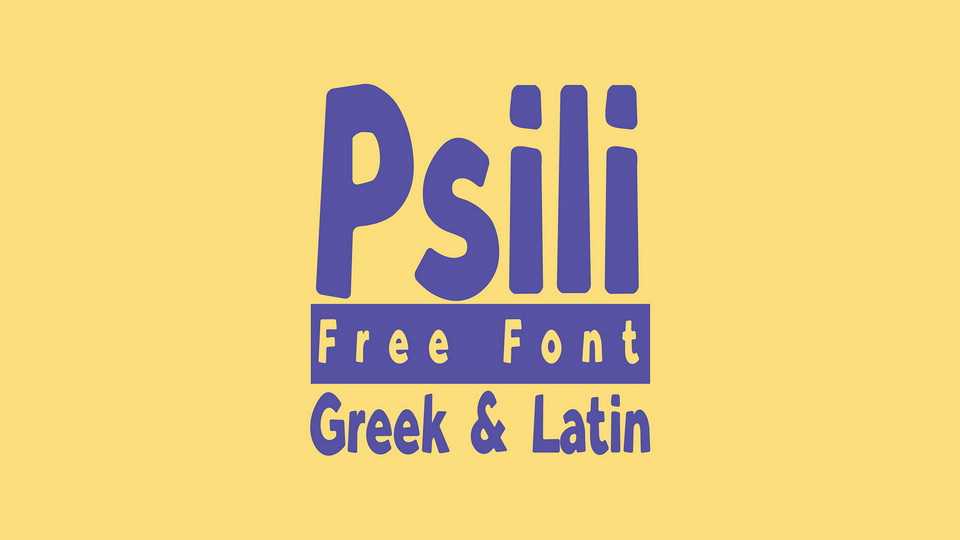
Download Psili font, a bold hand lettered typeface crafted with care to infuse your projects with a sense of playfulness and warmth. Psili font is the perfect font to add a whimsical touch to greeting cards, invitations, craft projects, and any design that calls for a sprinkle of creative flair.
Designer: Christos Lentzaris